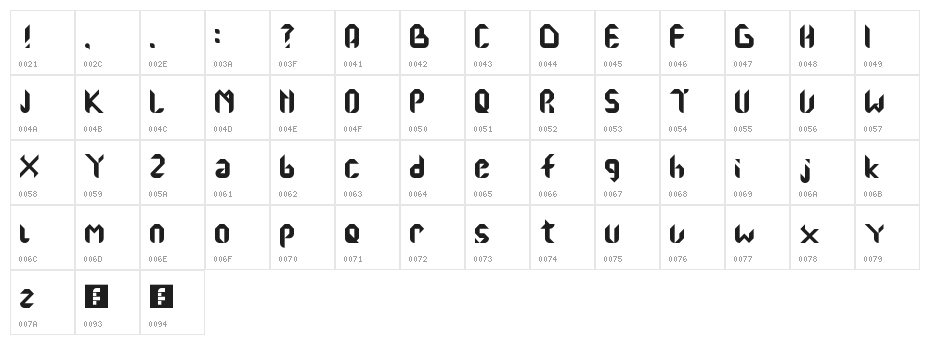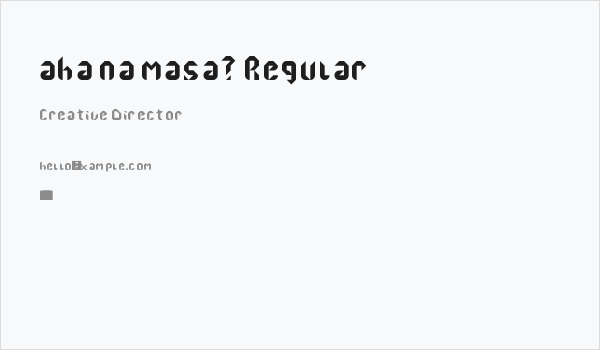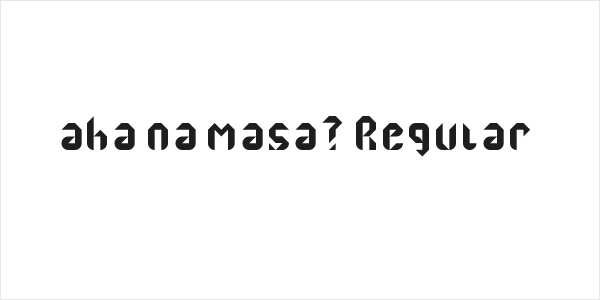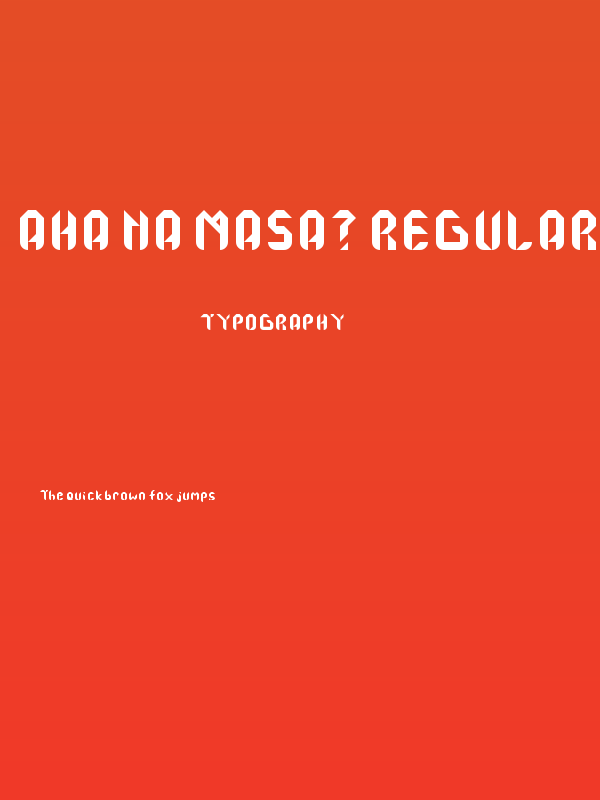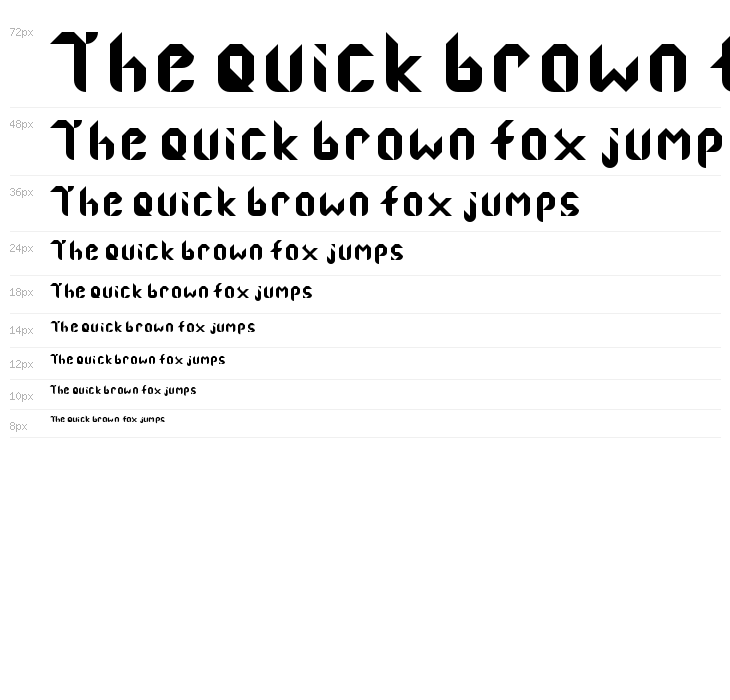
aha na masa? Regular Font
aha na masa? Regular Description
This font features a bold, geometric design with sharp angles and a futuristic feel. The characters are constructed with a combination of straight lines and diagonal cuts, giving it a unique, edgy appearance. The uppercase and lowercase letters maintain a consistent style, with a strong emphasis on angularity. The numbers and special characters follow the same design principles, ensuring uniformity across the font. This style is particularly eye-catching and can be used to make a strong visual impact.
| Overall Style | Futuristic, Edgy |
| Proposed Projects | Ideal for sci-fi themed projects, modern branding, posters, and digital artwork. |